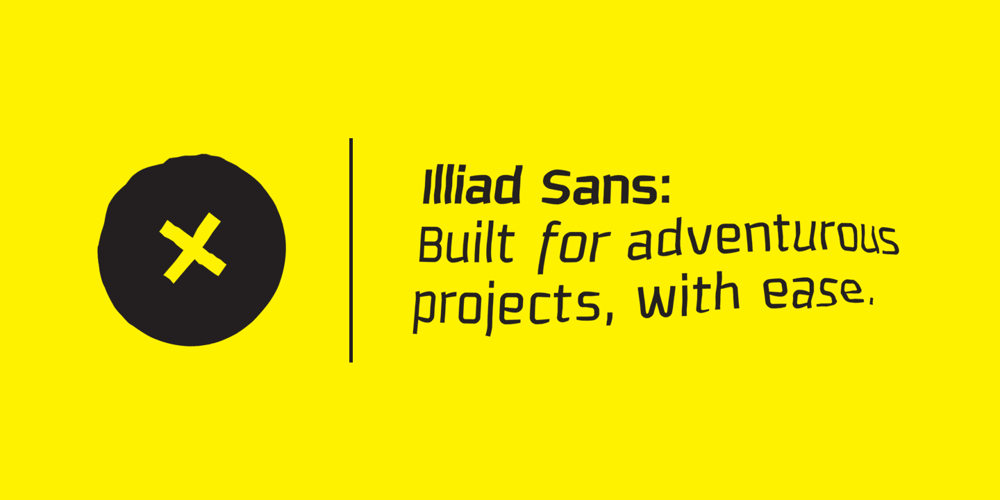
Illiad Sans Font Family was designed by Fábio Duarte Martins and published by Scannerlicker. Illiad Sans contains 18 styles and family package options. Illiad Sans is an adventurous type family, brave and charismatic, built for editorial contexts. The proportions are reduced in order to supress the need of small caps, avoiding editing hassles.